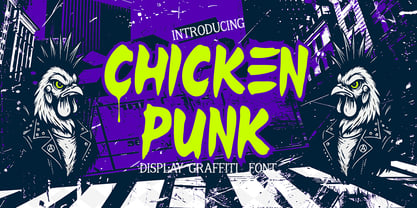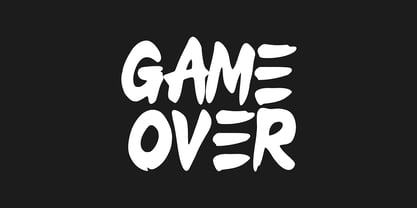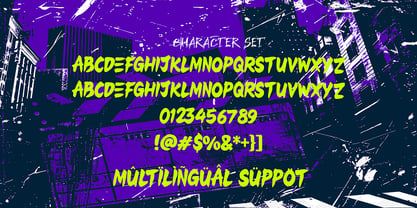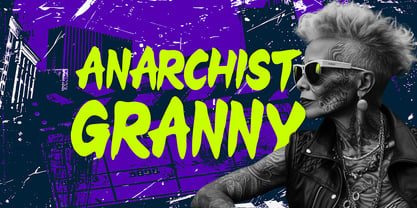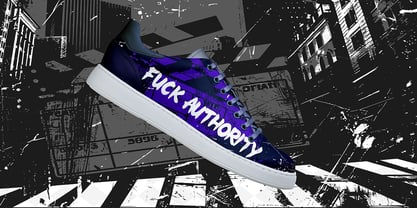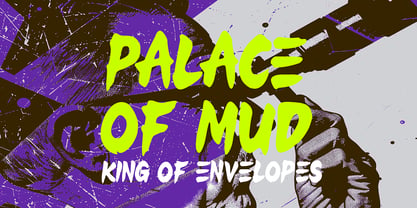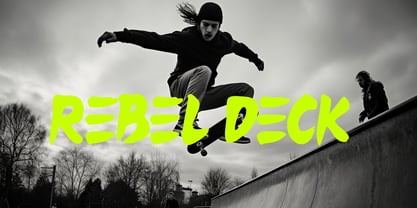
Chicken Punk
The Chicken Punk Font Family was designed by Sipanji and published by Sipanji21. Chicken Punk contains 1 styles. More about this family
Chicken Punk is a bold graffiti display font that mixes raw street energy with loud punk attitude. Built for designers who refuse to play it safe, this typeface turns every word into a shout of rebellion. Heavy strokes, rough edges, and drippy details give Chicken Punk a wild, hand-drawn feel that looks like it was sprayed straight onto a city wall or printed on a DIY punk gig poster. The letterforms are thick, expressive, and full of motion. Instead of clean, sterile shapes, Chicken Punk embraces imperfection — uneven edges, irregular rhythm, and a restless handmade vibe. This is what gives it character. It feels noisy, messy, and alive, just like the underground scenes that inspired it: punk rock shows, skate spots, sticker-bombed streets, and walls covered in tags and murals. Chicken Punk is designed as a display font, perfect for big titles that need maximum impact. Use it on album covers, concert posters, streetwear branding, or any project where the typography should hit as hard as the artwork. The strong forms keep it readable, even with all the grunge and grit, so you can push your designs visually without sacrificing clarity. To support real-world design needs, Chicken Punk includes uppercase letters, numbers, and punctuation, giving you everything you need for complete layouts — from main headlines to supporting text elements like prices, dates, or slogans. It also comes with multilingual support, making it suitable for global designers who want to bring punk energy into different languages and markets. Why designers choose Chicken Punk is for creatives who love fonts with personality. It’s not made to be neutral. It’s made to take over the page. Designers pick it when they want something that: Feels authentically graffiti-inspired Adds strong punk rock and street culture vibes Makes posters, covers, and branding look loud and aggressive Stands out in a crowd of clean, minimal typefaces Perfect use cases Music & band branding (punk, rock, hardcore, metal, alternative) Streetwear and skate brands Festival and gig posters Album covers, zines, flyers, and merch Graffiti-inspired packaging and digital artwork Social media graphics that need raw, rebellious energy Chicken Punk isn’t here to behave — it’s here to take over your layout. If your project needs grit, noise, and attitude instead of perfection and polish, this font will do the job. It brings the chaos of the street and the spirit of punk directly into your typography, turning simple text into a graphic statement.